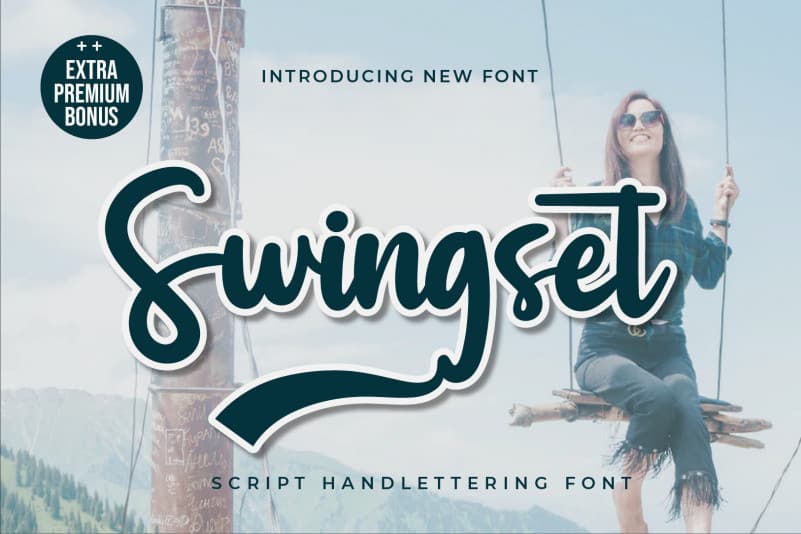
Swingset Script Font
Swingset Script Font is inspired by classic typography and brings its own unique style to any design project. Whether you’re looking for fonts for Instagram or calligraphy scripts for DIY projects, Elegance will turn any creative idea into a true piece of art!